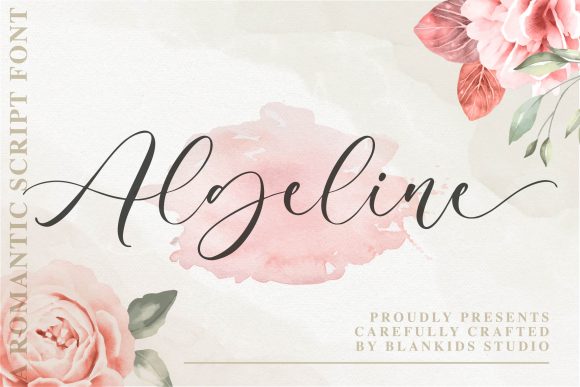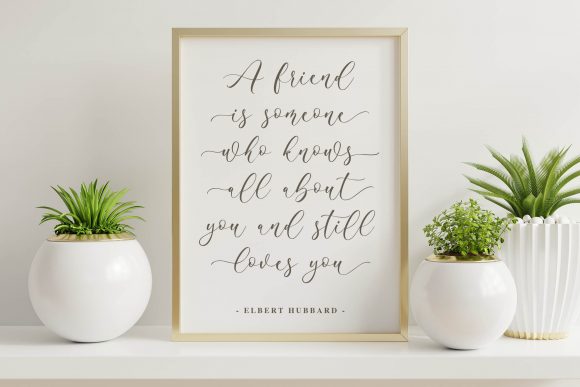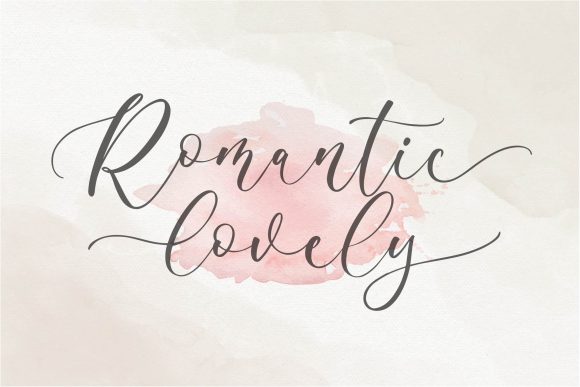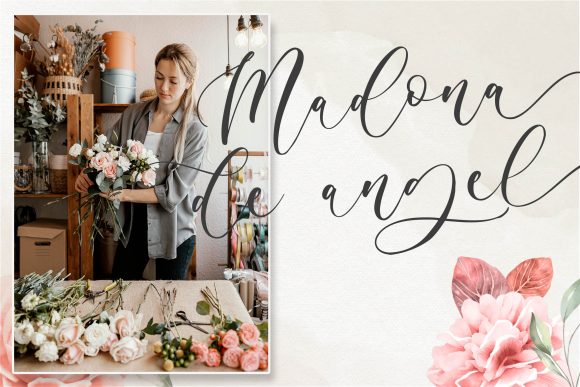
Algeline Font
About Algeline Font
is a beautiful light handwritten font with a unique feel and a stunning impact. It will add a luxury spark to any design project that you wish to create! This font is PUA encoded which means you can access all of the amazing glyphs and ligatures with ease!